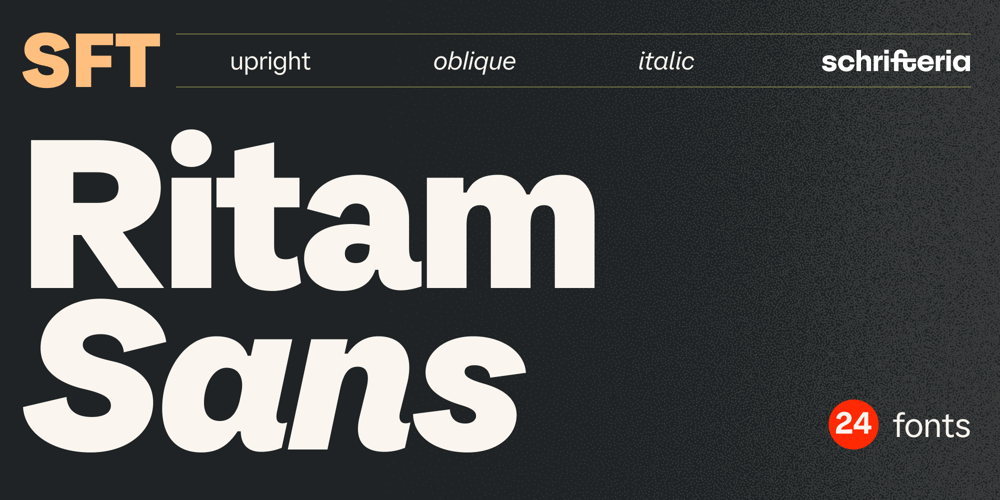
SFT Ritam Sans Font Family was designed by Yulia Gonina and published by Schrifteria Foundry. SFT Ritam Sans contains 26 styles and family package options. About SFT Ritam SerifSFT Ritam Sans is a neo-grotesque typeface with a lively, organic character inspired by the vibrant spirit of Belgrade. This font brings a fresh twist to classic grotesques, with subtle humanist touches that add warmth and personality to each weight. Perfectly suited for editorial design, branding, and advertising, SFT Ritam Sans provides a versatile option that transitions seamlessly from large display sizes to small body text, making it ideal for projects where readability and expressive detail matter.Besides the Oblique styles, SFT Ritam Sans offers True Italics, carefully crafted to add an extra layer of expressiveness. These italics stand out as a distinctive feature, offering a more dynamic and authentic slant than standard obliques and making the typeface exceptionally versatile for design contexts that require both elegance and impact.Designed with clean lines, fluid curves, and open shapes, SFT Ritam Sans conveys a sense of movement and energy while remaining highly legible. Its structure reflects the rhythm and character of Belgrade’s streets, captured in smooth transitions and rounded details that bring a subtle humanistic quality to its neo-grotesque forms.With its broad character set, including multilingual support, SFT Ritam Sans is a reliable choice for global branding projects, editorial layouts, and more. Whether used for headlines, subheads, or lengthy text passages, this typeface adapts to any need while infusing a unique sense of style.Language supportLatin: Abenaki, Afaan-Oromo, Afar, Afrikaans, Albanian, Alsatian, Amis, Anuta, Aragonese, Aranese-Aromanian, Arrernte, Arvanitic (Latin), Asturian, Atayal, Aymara, Azerbaijani, Bashkir-(Latin), Basque, Belarusian (Latin), Bemba, Bikol, Bislama, Bosnian, Breton, Cape-Verdean-Creole, Catalan, Cebuano, Chamorro, Chavacano, Chichewa, Chickasaw, Cimbrian, Cofán, Cornish, Corsican, Creek, Crimean Tatar (Latin), Croatian, Czech, Danish, Dawan, Delaware, Dholuo, Drehu, Dutch, English, Esperanto, Estonian, Faroese, Fijian, Filipino, Finnish, Folkspraak, French, Frisian, Friulian, Gagauz (Latin), Galician, Ganda, Genoese, German, Gikuyu, Gooniyandi, Greenlandic (Kalaallisut), Guadeloupean-Creole, Gwich’in, Haitian-Creole, Hän, Hawaiian, Hiligaynon, Hopi, Hotcąk (Latin), Hungarian, Icelandic, Ido, Igbo, Ilocano, Indonesian, Interglossa, Interlingua, Irish, Istro-Romanian, Italian, Jamaican, Javanese-(Latin), Jèrriais, Kaingang, Kala-Lagaw-Ya, Kapampangan (Latin), Kaqchikel, Karakalpak-(Latin), Karelian (Latin), Kashubian, Kikongo, Kinyarwanda, Kiribati, Kirundi, Klingon, Kurdish-(Latin), Ladinlatinlatino-sine-Flexione, Latvian, Lithuanian, Lojban, Lombard, Low-Saxon, Luxembourgish, Maasai, Makhuwa, Malay, Maltese, Manx, Māori, Marquesan, Megleno-Romanian, Meriam-Mir, Mirandese, Mohawk, Moldovan, Montagnais, Montenegrin, Murrinh-Patha, Nagamese-Creole, Nahuatl, Ndebele, Neapolitan, Ngiyambaa, Niuean, Noongar, Norwegian, Novial, Occidental, Occitan, Onĕipŏt, Oshiwambo, Ossetian (Latin), Palauan, Papiamento, Piedmontese, Polish, Portuguese, Potawatomi, Q’eqchi’, Quechua, Rarotongan, Romanian, Romansh, Rotokas, Sami-(Inari-Sami), Sami (Lule-Sami), Sami (Northern-Sami), Sami (Southern-Sami), Samoan, Sango, Saramaccan, Sardinian, Scottish-Gaelic, Serbian-(Latin), Seri, Seychellois-Creole, Shawnee, Shona, Sicilian, Silesian, Slovak, Slovenian, Slovio-(Latin), Somali, Sorbian (Lower-Sorbian), Sorbian (Upper-Sorbian), Sotho (Northern), Sotho-(Southern), Spanish, Sranan, Sundanese (Latin), Swahili, Swazi, Swedish, Tagalog, Tahitian, Tetum, Tok-Pisin, Tokelauan, Tongan, Tshiluba, Tsonga, Tswana, Tumbuka, Turkish, Turkmen-(Latin), Tuvaluan, Tzotzil, Uzbek (Latin), Venetian, Vepsian, Volapük, Võro, Wallisian, Walloon, Waray-Waray, Warlpiri, Wayuu, Welsh, Wik-Mungkan, Wiradjuri, Wolof, Xavante, Xhosa, Yapese, Yindjibarndi, Zapotec, Zarma, Zazaki, Zulu, Zuni.Cyrillic: Adyghe, Akhvakh, Aleut (Cyrillic), Altaic, Andi, Archi, Avar, Bashkir, Belarusian (Cyrillic), Besermyan, Bosnian (Cyrillic), Bulgarian (Cyrillic), Buryat, Chechen (Cyrillic), Chukchi, Chulym, Chuvash, Dargwa, Dungan, Enets, Even (Lamut), Gagauz, Godoberi, Ingush, Kabardino-Cherkess, Karaim, Karakalpak, Karata (Karata-Tukita), Karelian, Kazakh (Cyrillic), Ket, Kildin Sámi, Kirghiz, Komi-Zyrian, Koryak, Kumyk, Lak, Lezgian, Macedonian, Moldavian (Cyrillic), Mongolian, Mordvin-moksha, Nanai, Nganasan, Oroch, Ossetian, Russian, Rusyn, Saami, Serbian (Cyrillic), Soyot-Tsaatan, Tabasaran, Tadzhik, Tatar Volgaic, Tindi, Touva, Tsez, Turkmen (Cyrillic), Udege, Udmurt, Uighur (Cyrillic), Ukrainian, Ulch, Uzbek (Cyrillic), Veps, Yukagir.